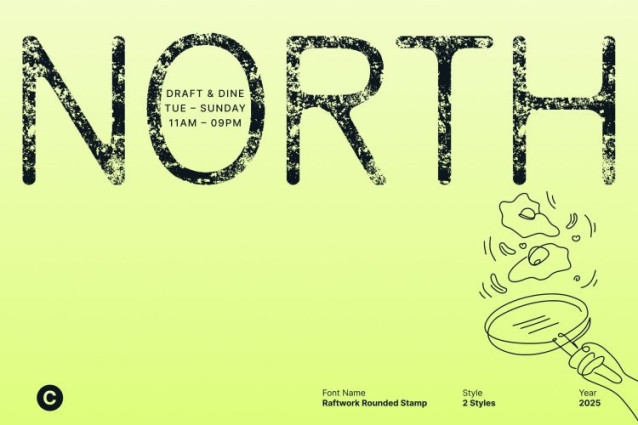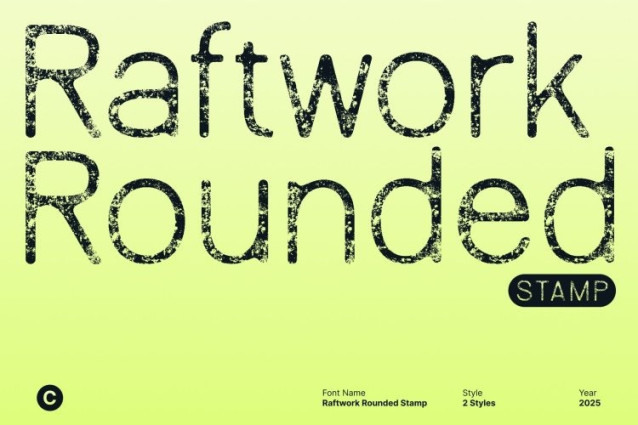
Raftwork Rounded Stamp Font
Raftwork Rounded Stamp Font This is a contemporary sans serif font crafted with a blend of corporate precision, industrial influence, and trending modern style. Its clean structure and rounded edges create a professional, sophisticated, and captivating visual presence.
Rounded Industrial Design for a Strong Yet Friendly Look
The font features sleek geometry, proportions, and softened corners, giving it a distinctive industrial-modern charm. The rounded details balance the font’s sturdy construction, making each character feel refined yet friendly. This combination enhances readability while adding subtle warmth to otherwise fierce, technical shapes ideal for brands that want to project clarity and reliability.
Stamped Texture for a Vintage, Tactile Character
Adding depth and personality to its polished structure is the stamp effect, introducing worn edges, rough texture, and subtle imperfections. This effect transforms this font into a typeface with vintage authenticity, expressive grit, and handcrafted charm. The textured finish pairs beautifully with the clean forms, creating a striking contrast that feels both modern and nostalgic.
Perfect for Branding, Posters, and Display Designs
This font shines in display uses, making it ideal for branding, corporate identities, packaging, editorial titles, posters, signage, and creative digital projects. Its industrial foundation ensures strong visual impact, while the rounded shapes and stamp texture add character that makes every layout feel dynamic and memorable.